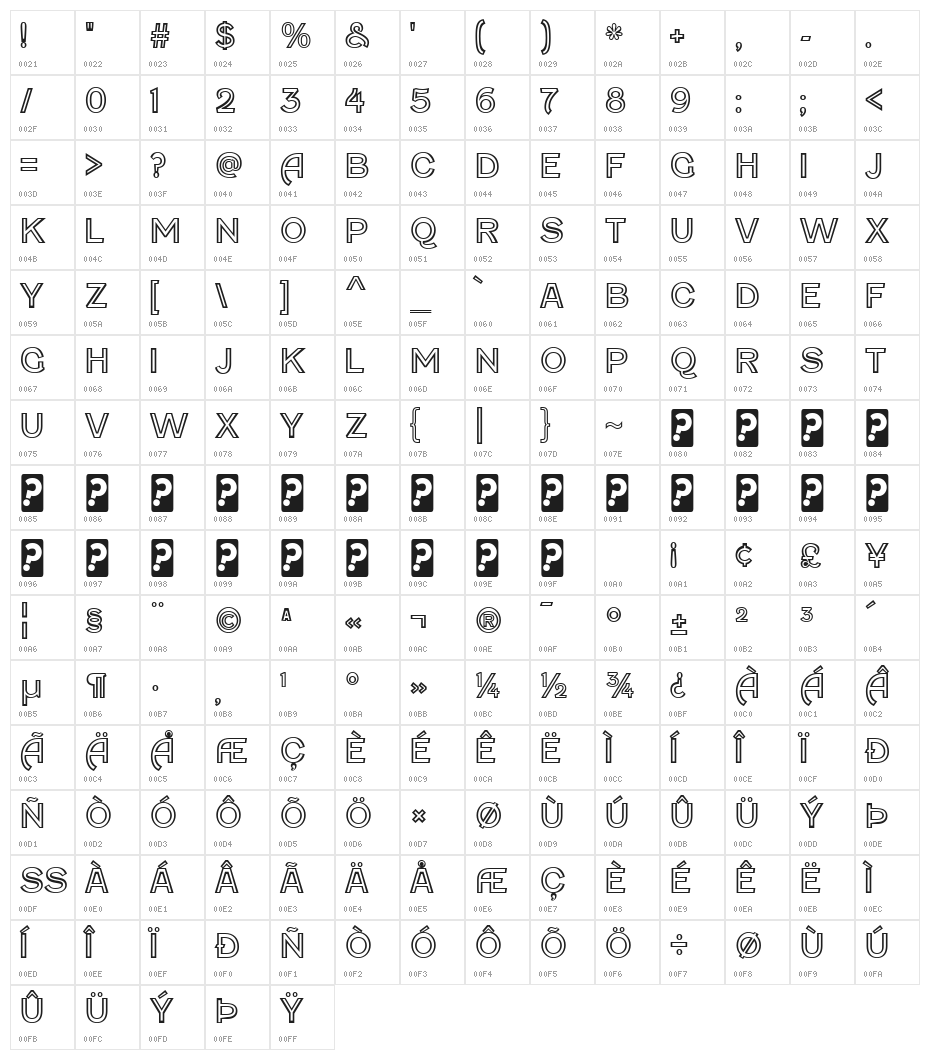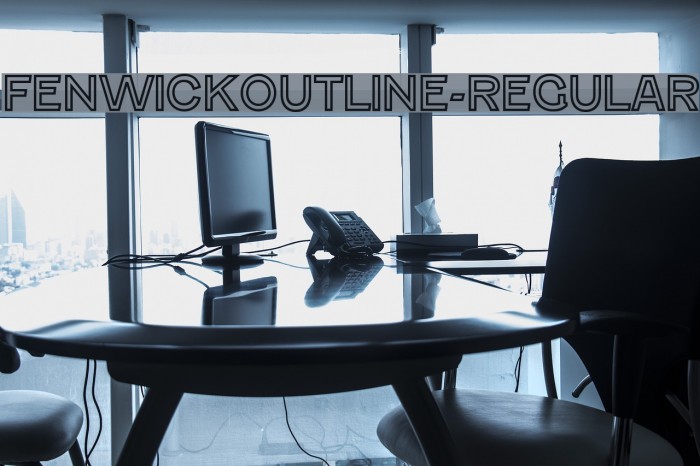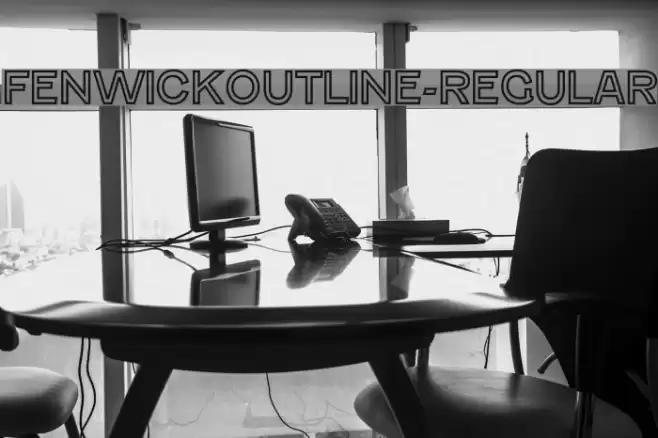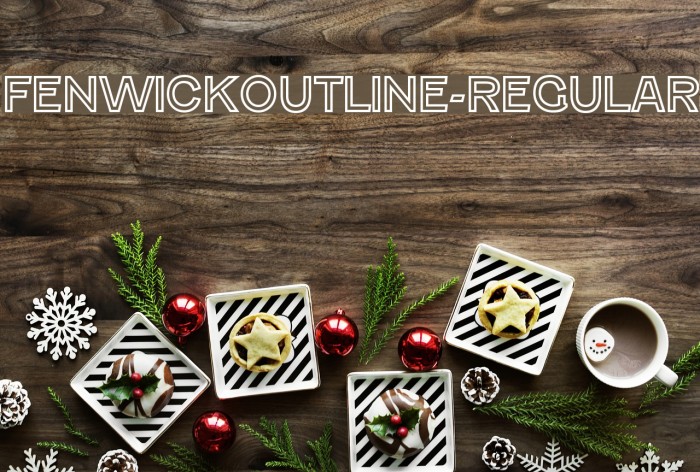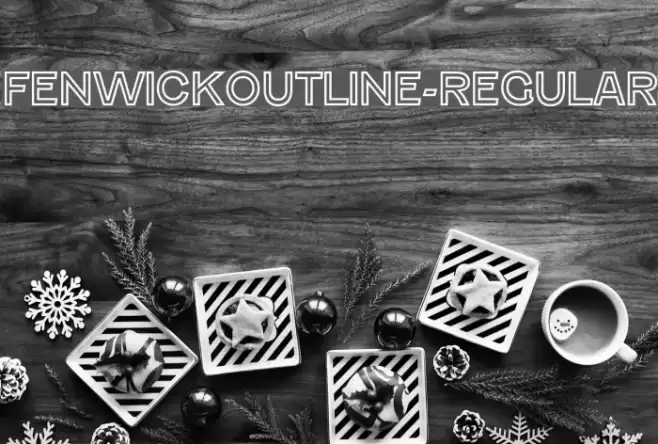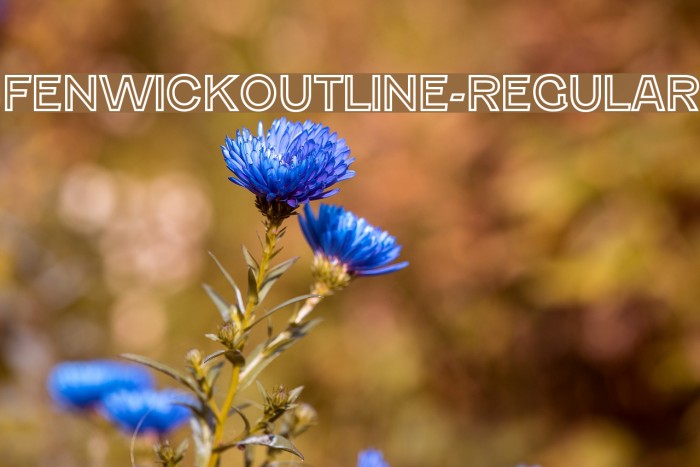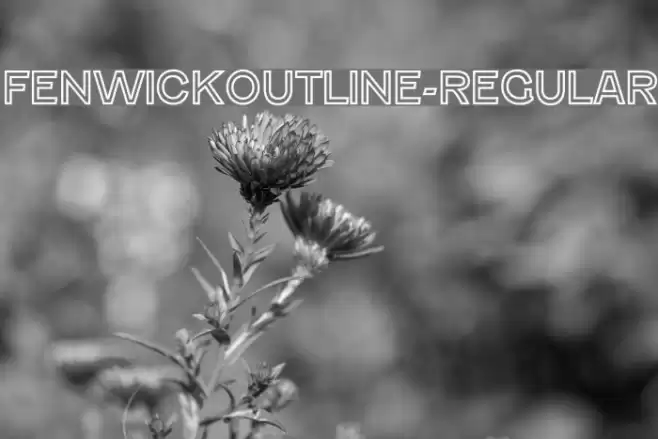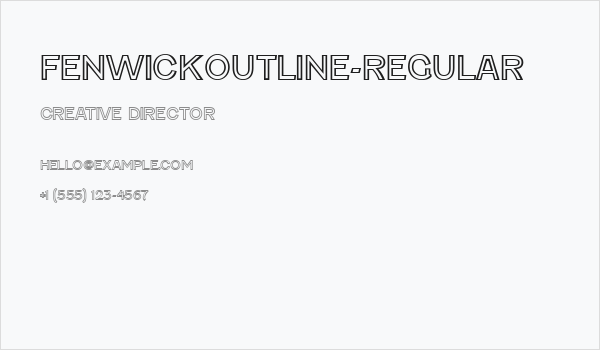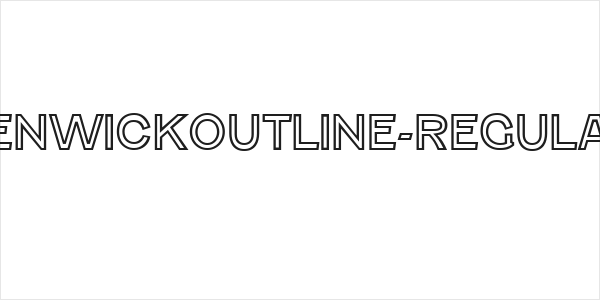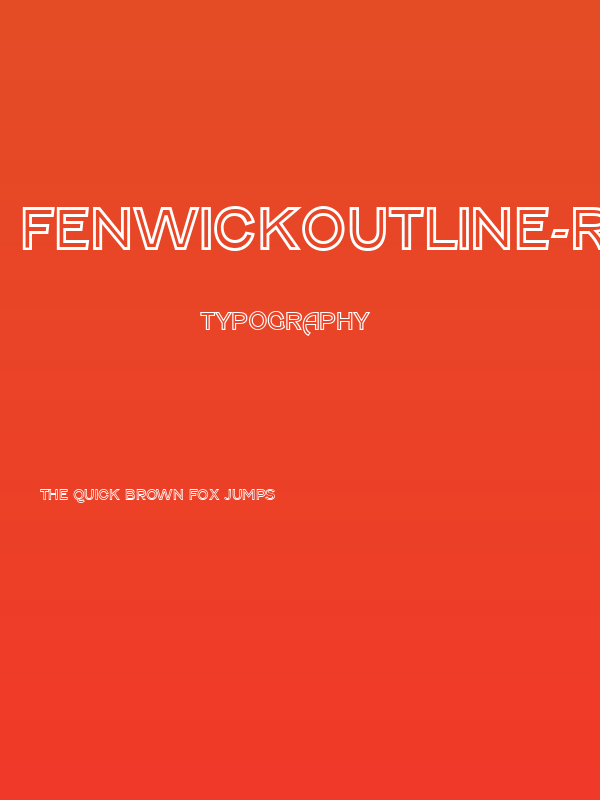
FenwickOutline-Regular Font
FenwickOutline-Regular Description
This font features a bold, outlined style with a modern and geometric appearance. The characters are uppercase and lowercase letters, numbers, and a variety of special symbols. Each letter is crafted with a consistent stroke width, creating a uniform and clean look. The outline design gives it a unique, eye-catching quality that stands out in any design. The font is highly legible and versatile, making it suitable for various creative applications. Its structured form and clear lines make it ideal for projects that require a contemporary and stylish touch.
| Proposed Projects | Ideal for logos, posters, headlines, and branding materials. |